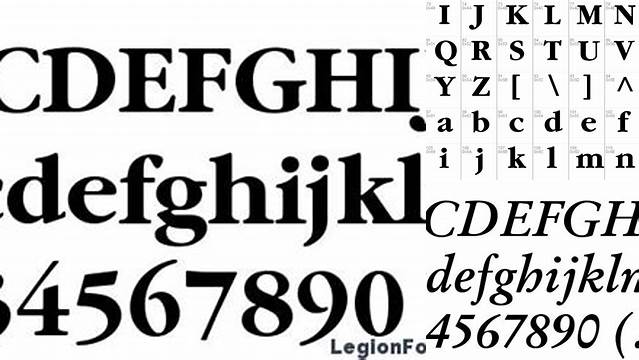
Hey guys! Are you on the hunt for a classic and elegant font? Look no further because we're diving deep into Garamond Bold, a timeless typeface that's perfect for a variety of design projects. And the best part? We'll show you how to get a free download! Let's get started and explore everything about this amazing font, from its history and usage to where you can snag it without spending a dime. Prepare to give your designs a touch of sophistication!
What is Garamond Bold?
So, what exactly is Garamond Bold? Well, it's a variation of the Garamond font family. Garamond itself is a serif typeface that's been around for centuries, known for its graceful curves, high legibility, and classic appeal. Imagine it as the cool, sophisticated older sibling of other fonts. The bold version, as you might guess, is a thicker, more impactful version of the original. This makes it ideal for headings, titles, and anywhere you want to grab a reader's attention. It retains the elegance of the original Garamond but with a stronger presence. Think of it as the font equivalent of a power suit: it commands attention while still maintaining a sense of refined style. Its classic design makes it great for all kinds of uses. This includes everything from books, magazines, and websites. It is also a popular choice for branding and marketing materials because of its timeless look.
Historically, the Garamond fonts, were created in the 16th century by Claude Garamond, a French punch-cutter. Garamond's work was highly regarded, and his fonts were widely used. The Garamond typeface is based on the letterforms of the Renaissance period. It is characterized by its subtle details, such as the slight outward slope of the letterforms. The beautifully curved serifs and the varying stroke weights give the typeface its distinctive look. These details contribute to the font's readability and aesthetic appeal. The font has undergone numerous revivals and adaptations over the centuries, ensuring its availability in the digital age. Many variations of the original Garamond have been created. Each with its own unique characteristics. Including the bold versions and other weights. Garamond Bold is a testament to the enduring quality of classic typography. It is still relevant and valued by designers around the world.
When comparing the Garamond font family with other fonts, you can see the unique character and elegance of Garamond Bold. For example, the difference between Garamond and Arial is clear. Arial, a sans-serif font, has a more modern and geometric appearance. While Garamond, with its serifs, offers a more traditional and refined aesthetic. Similarly, in comparison to Times New Roman, another popular serif font, Garamond often appears more graceful and organic. This is due to the subtle details of the letterforms and the slightly more open counters. Compared to other serif fonts, Garamond often has a higher x-height. This is the height of the lowercase letters. This feature enhances readability. The versatility of the Garamond family allows it to be used in a variety of design projects. It can work well in both body text and display headlines. It offers a balance of readability and visual interest.